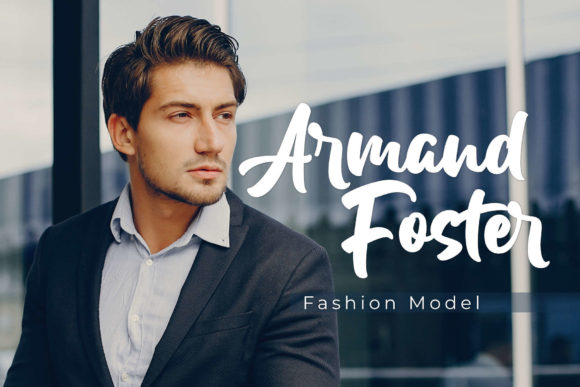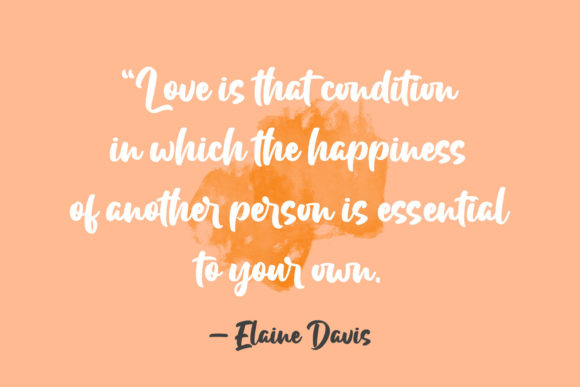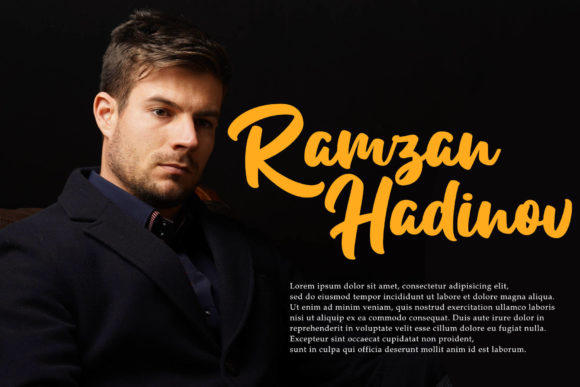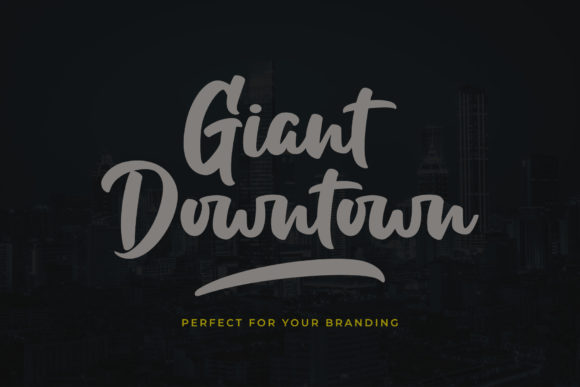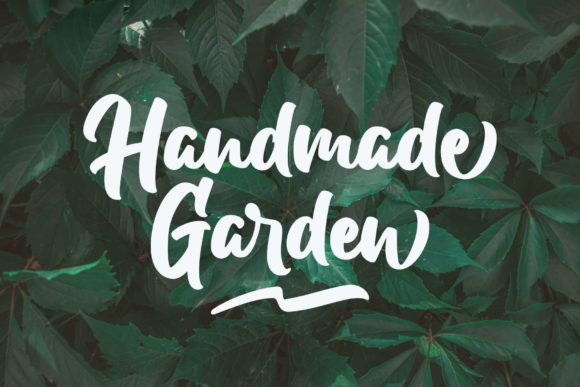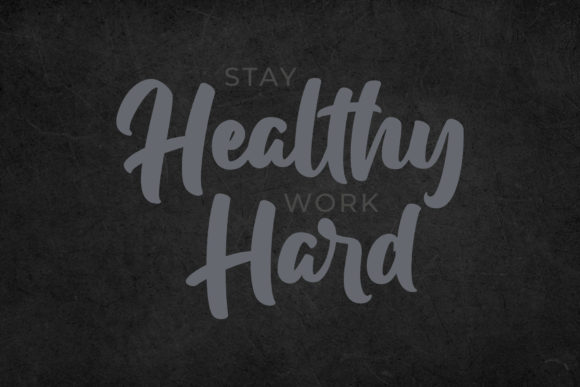
Introduction to Dentalion Font
Have you ever found yourself stuck in a creative rut, scrolling through design inspiration boards, searching for that perfect font to elevate your project? I know I have. It’s like finding a needle in a haystack – until you stumble upon a hidden gem that makes your design come alive.
For designers, the right font can make all the difference in a project. It’s the secret ingredient that takes a design from good to great. And that’s exactly what the Dentalion Font offers – a beautiful, balanced character that’s perfect for any creative project.
With its lovely paint-brushed script design and transparent background, the Dentalion Font is a high-quality design resource that’s sure to impress. Plus, it’s PUA encoded, making it easy to access all the glyphs and swashes you need. And the best part? You can download it for free, making it an invaluable addition to any designer’s toolkit.
Key Features of Dentalion Font
- High-quality font designed for creative projects, available for free download
- Comes with a transparent background, making it ideal for digital designs
- Unique characteristics include a modern and minimalist aesthetic, perfect for branding and design projects
Honest Review: Dentalion Font
I recently had the chance to work with the Dentalion Font in a creative project, and I must say it’s a great addition to any designer’s toolkit. The font is available for free download, which is a huge plus for those on a budget.
- What works well: ✨ The Dentalion Font has a sleek and modern design that works well for a variety of applications, from logos to brochures. It also has a transparent background, making it easy to use with any background image or color.
- What works well: ✨ The font is also highly customizable, allowing you to adjust the size, color, and style to fit your needs.
- What works well: ✨ The Dentalion Font is also a high quality design resource, with a clean and professional look that’s sure to impress.
However, there are a few limitations to be aware of. ⚠️ The font may not be suitable for all types of projects, particularly those that require a more formal or traditional look. Additionally, the font’s design may not be suitable for very small text sizes.
Overall, I’m impressed with the Dentalion Font and would definitely recommend it to designers looking for a free and high quality design resource. With its modern design and transparent background, it’s a great choice for a variety of creative projects.
The Dentalion Font is commonly used in creative projects, such as:
- Logos
- Brochures
Yes, the Dentalion Font is designed to be high-quality and suitable for use in high-resolution designs. It features clear, crisp letterforms and a transparent background, making it perfect for use in digital art, graphic design, and other creative projects.